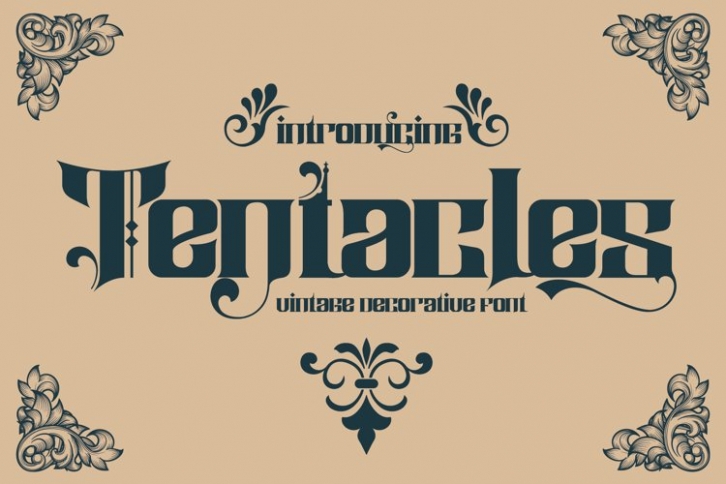
Tentacles is a gorgeous font that was realeased on December 17, 2021. The font can be used in many style contexts and design environments. Perfect for invitations, magazines, websites, logos, and more! It was designed by plusstore and the file size is 10.5 MB. Thanks for checking out this font!